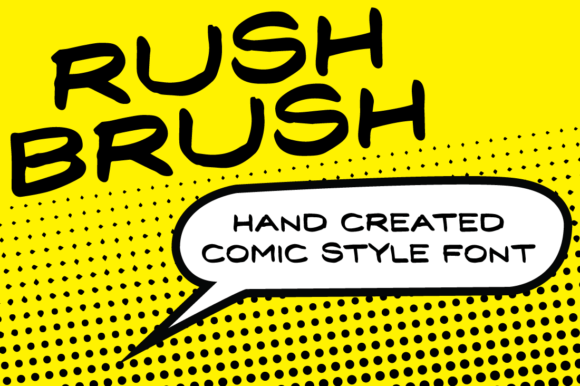
Unleash your creativity and make a bold statement with Rush Brush Font, the ultimate display font inspired by the captivating world of comic books. This all-caps brush font is a masterpiece crafted by stompstock, renowned for creating fonts that ignite imagination and leave a lasting impact.
With its bold and unique characters, Rush Brush Font possesses an authentic style that will transform your designs into captivating works of art. Perfect for headlines, posters, T-shirt designs, branding, and more, this font is a versatile tool that will elevate your projects to new heights.
Immerse yourself in the world of comic books and let Rush Brush Font transport you to a realm of adventure and imagination. Its hand-crafted details and expressive strokes will add a touch of authenticity and dynamism to your designs, making them stand out from the crowd.
Whether you're designing a business book, creating eye-catching posters, or crafting T-shirts with a unique flair, Rush Brush Font is the perfect choice for those seeking a font that exudes personality and impact. Its bold presence will command attention and leave a lasting impression on your audience.